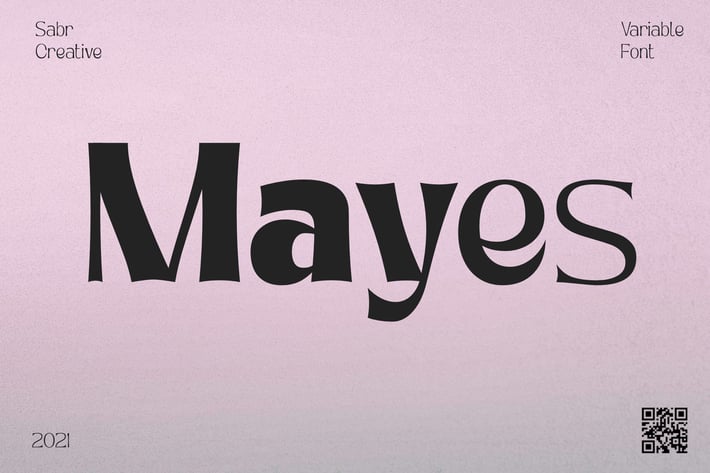
Mayes - Variable Font
SabrCreative
Mayes is a high contrast display serif variable font crafted for luxury branding, editorial, and fashion design projects. With dramatic thick thin strokes and distinctive letterforms inspired by vintage display typefaces, Mayes delivers a bold yet sophisticated personality perfect for premium identities.
- Variable font with continuous weight axis
- 5 static styles: Regular, Medium, Semi Bold, Bold, Extra Bold, Black
- 319+ meticulously crafted glyphs
- Mixed case with unique character designs
- Extensive multilingual support with extended Latin characters
- High contrast thick thin stroke construction